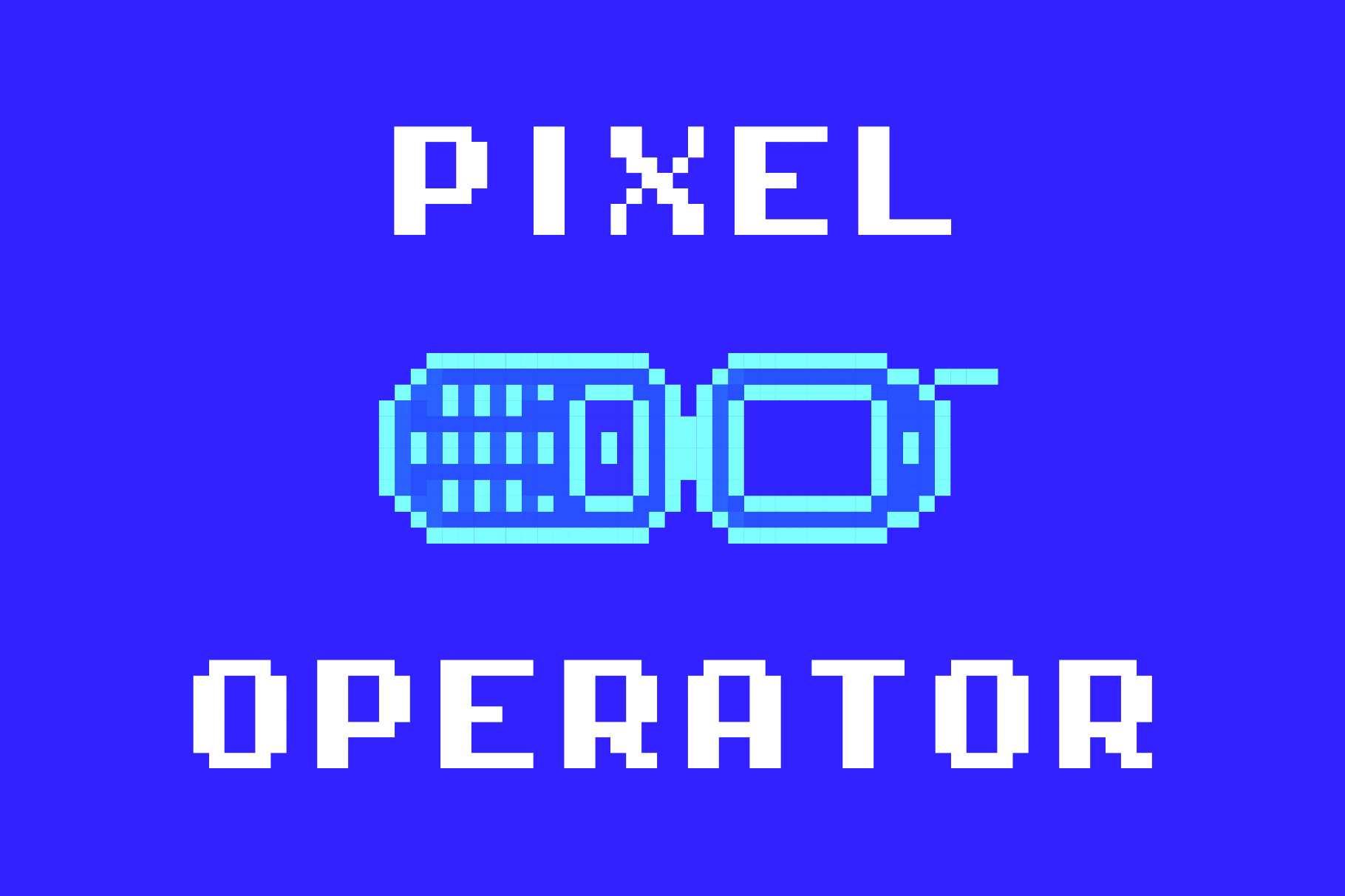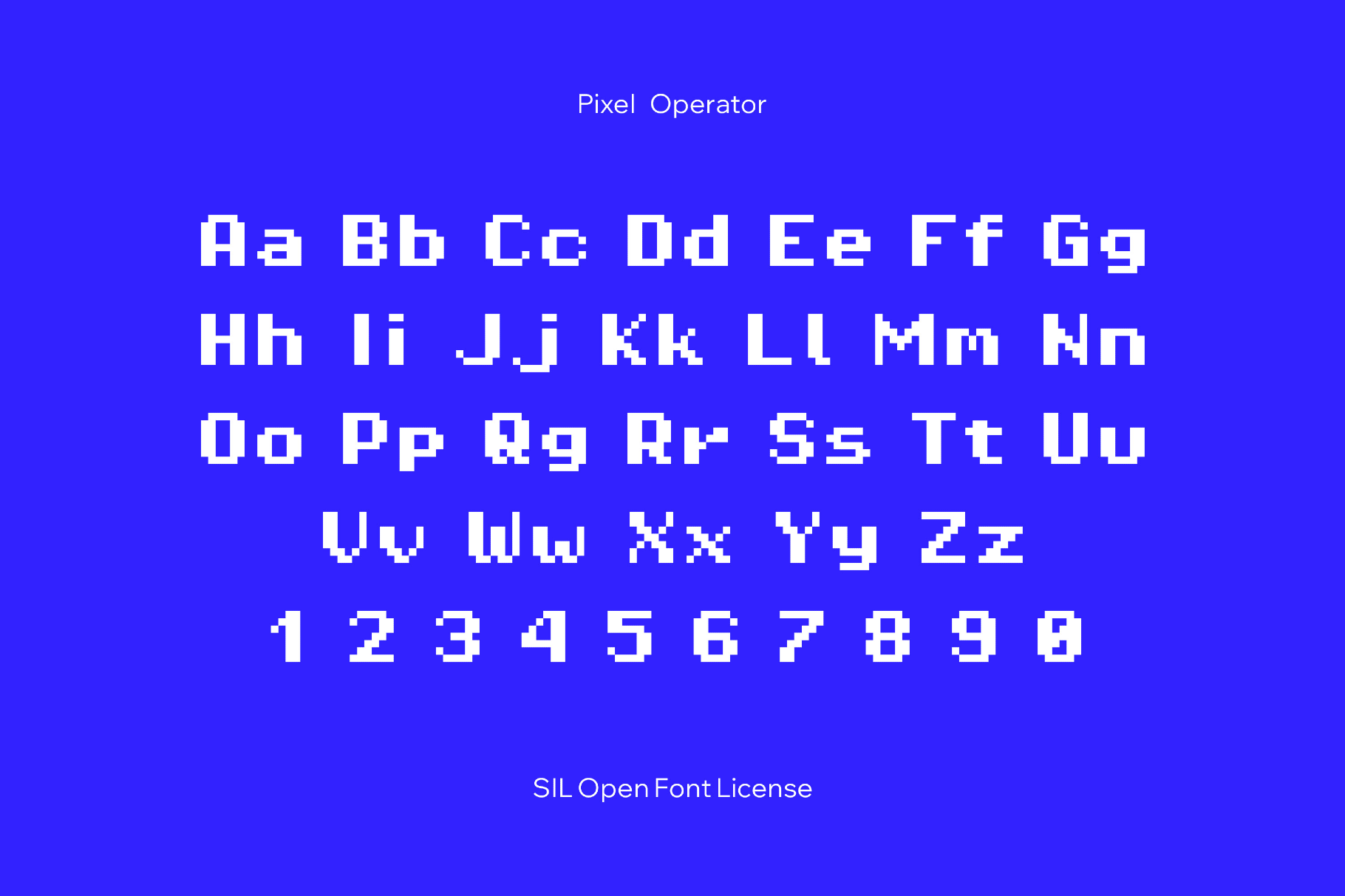
Pixel Operator
Pixel Operator has proportional and monospaced characters on a tidy grid with open counters and calm spacing. This family fits Undertale-style RPG interfaces, retro platformer, puzzle game UIs, launchers, menus, terminals, debug overlays, pixel-art captions, devlogs, technical documentation, and software mockups.
- Multiple styles: Regular, Bold, Semi Condensed, etc.
- Uppercase and lowercase letters, numbers, punctuation, symbols, international characters, and extra symbols.